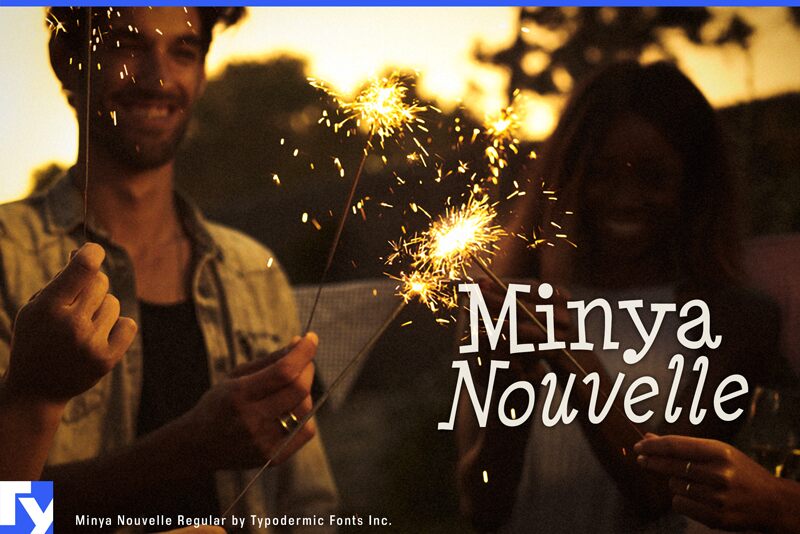
Minya Nouvelle by Ray Larabie of Typodermic Fonts Inc. is a free irregular display serif with tall, loosely drawn forms. Its uneven stroke widths, tilted crossbars, and sharp wedge-like serifs give the lettering the irregularity of cut-paper shapes.
Folklore, eccentric history, and theatrical themes suit its offbeat construction, making it useful for festival posters and entertainment graphics. It can also lend an unconventional voice to confectionery packaging or children's merchandise, especially when the artwork shares its angular shapes. In publishing, it is best suited to illustrated cover lines and section titles that benefit from an unruly storybook manner.
Minya Nouvelle is a display font family.